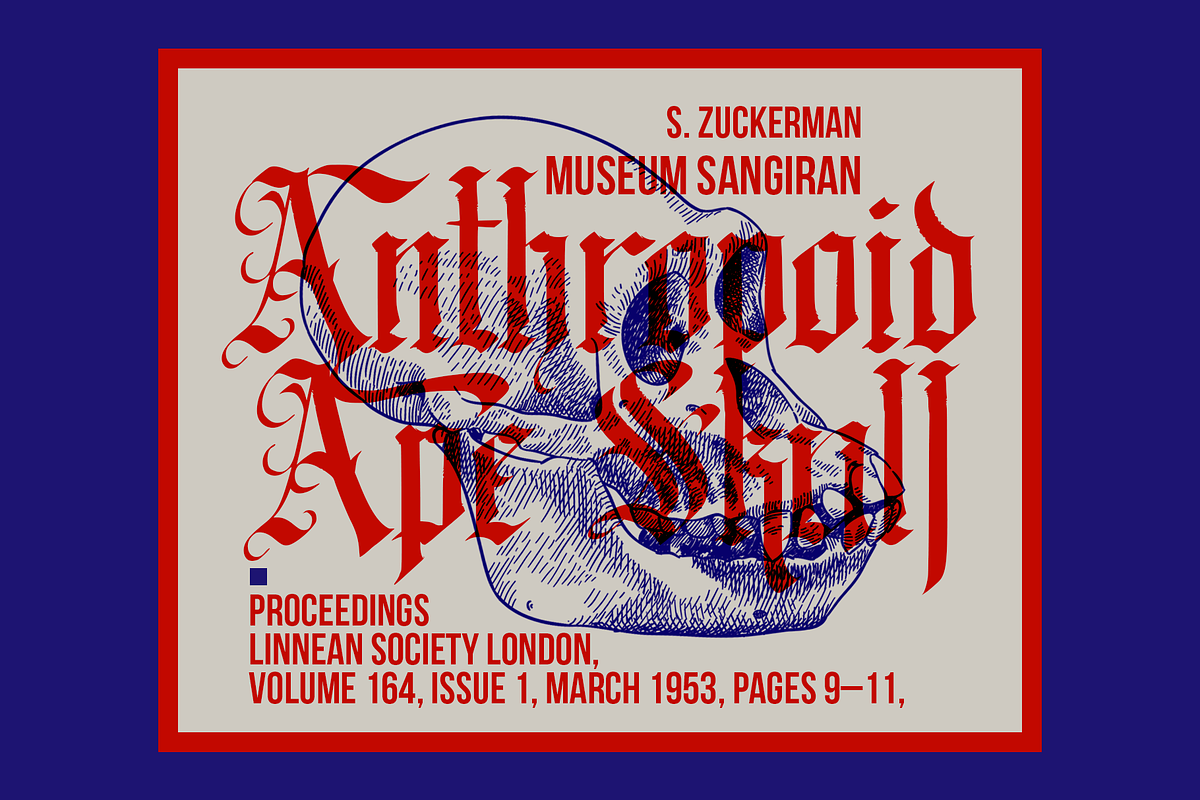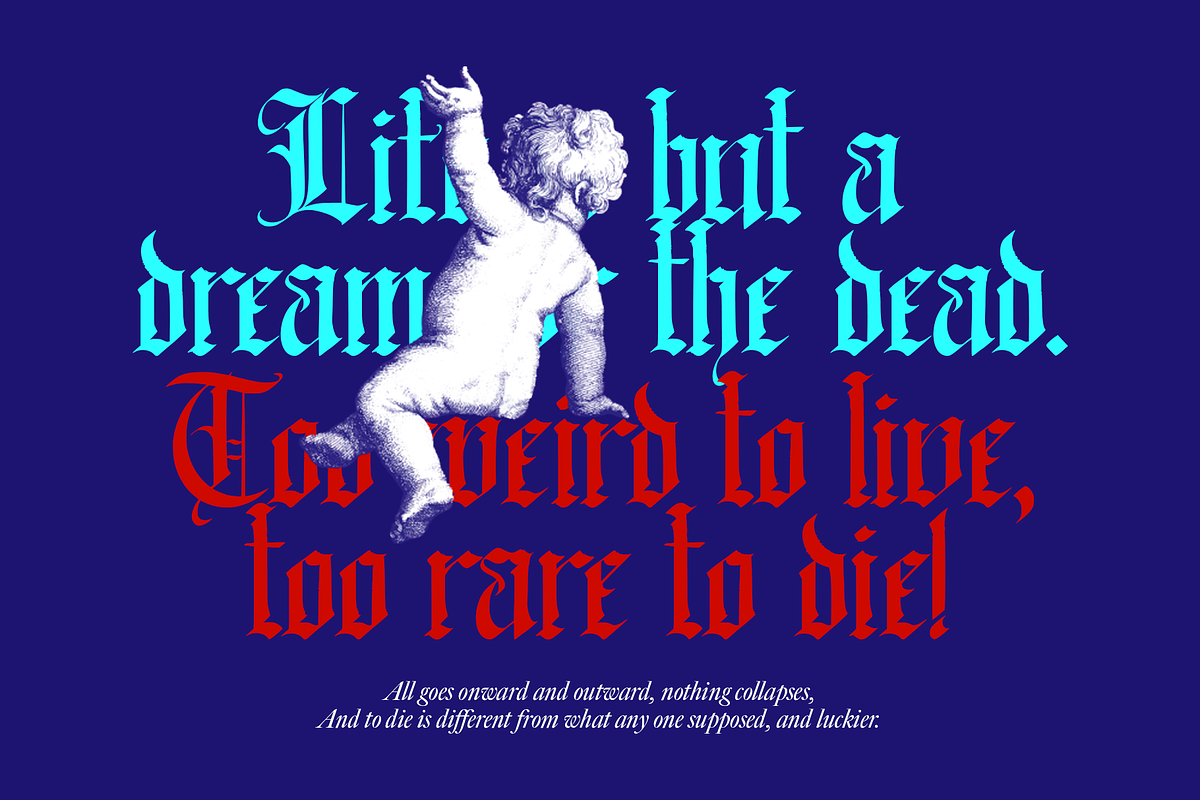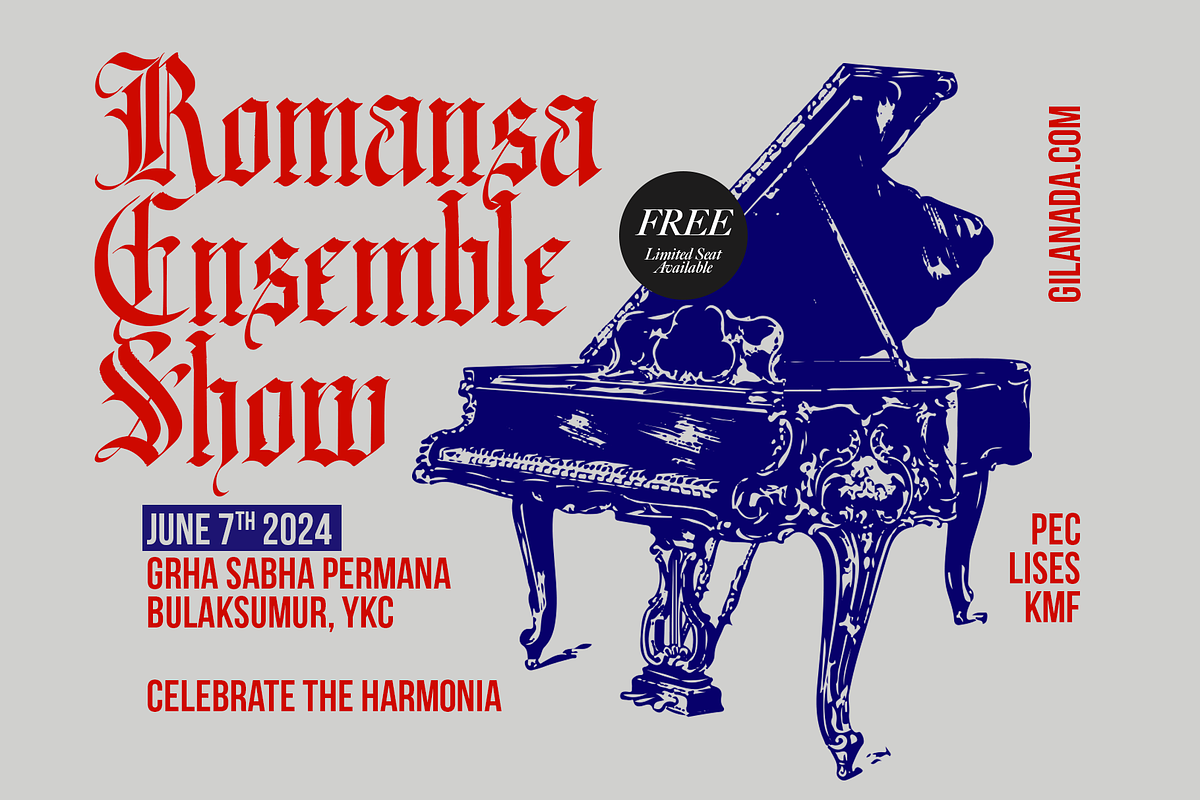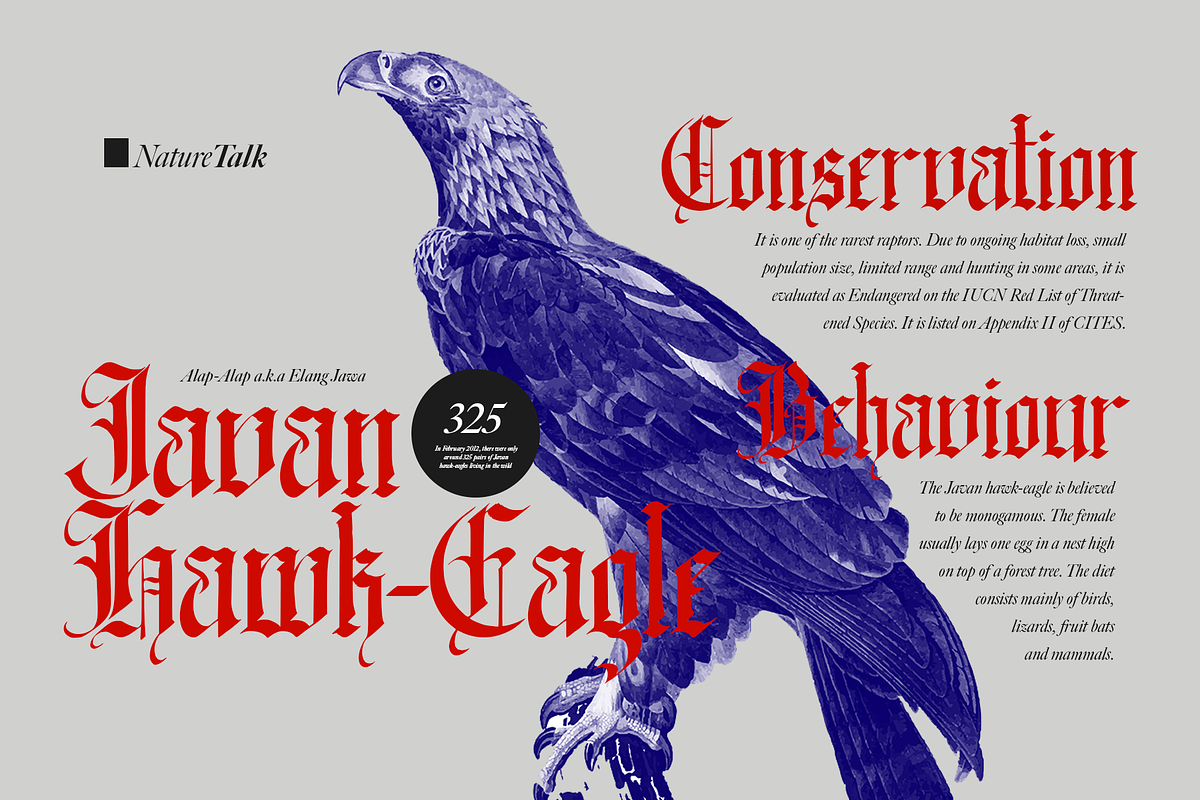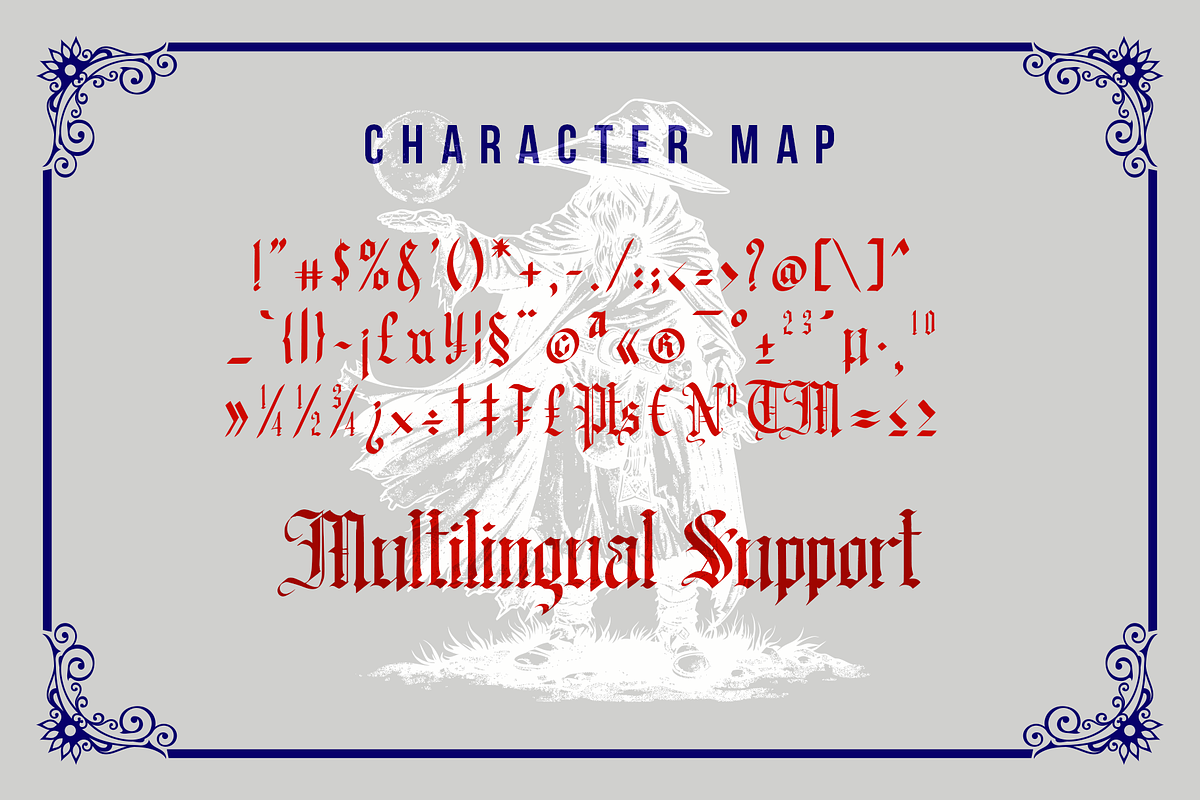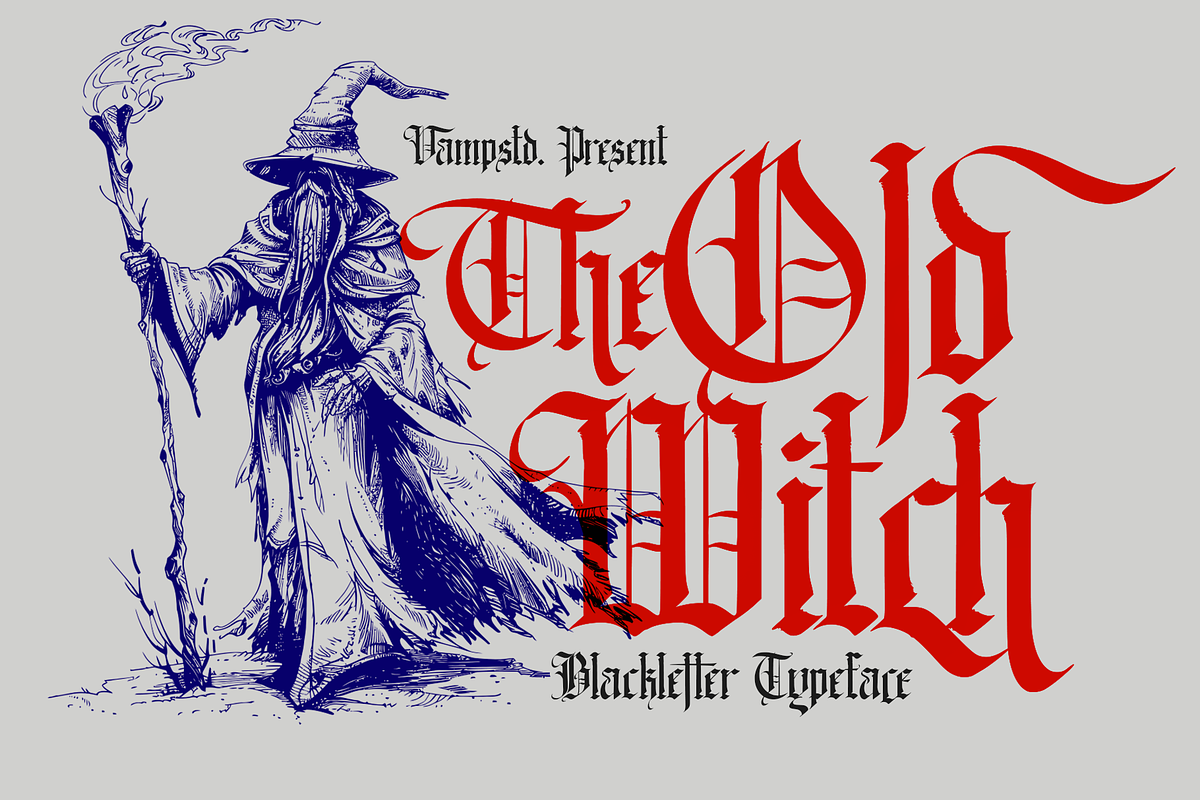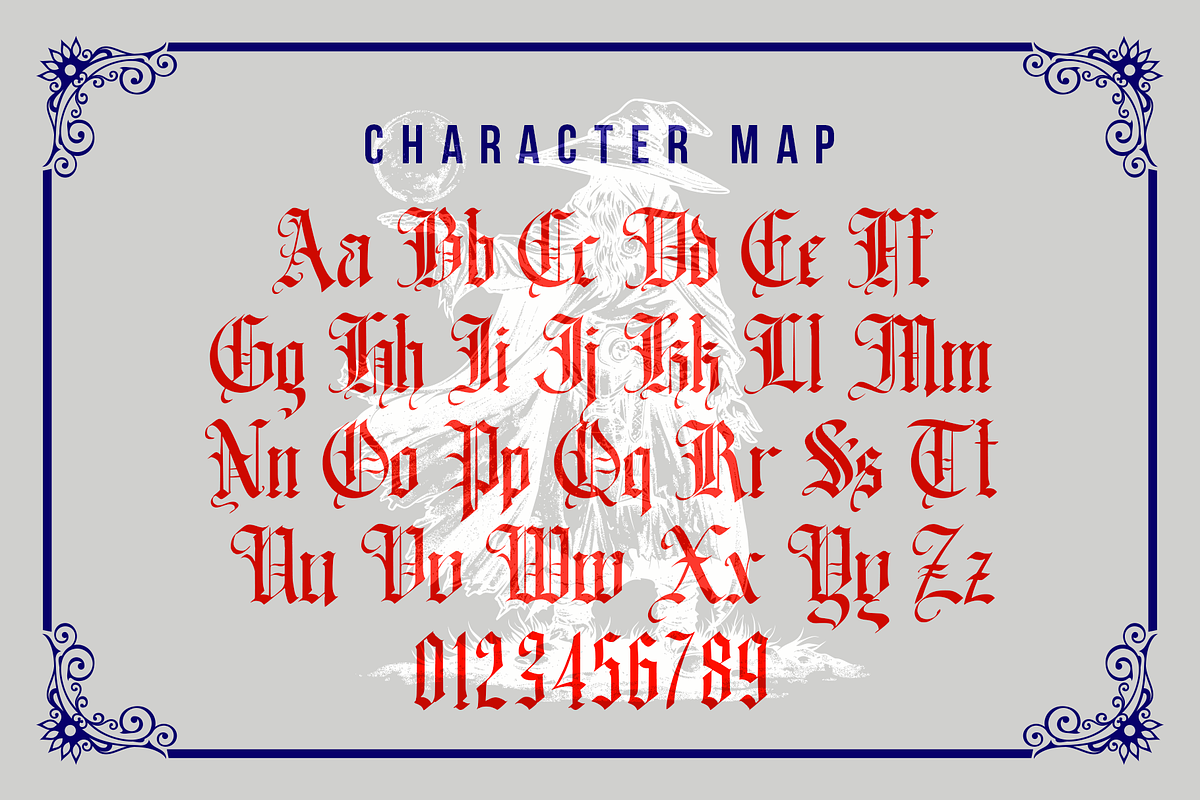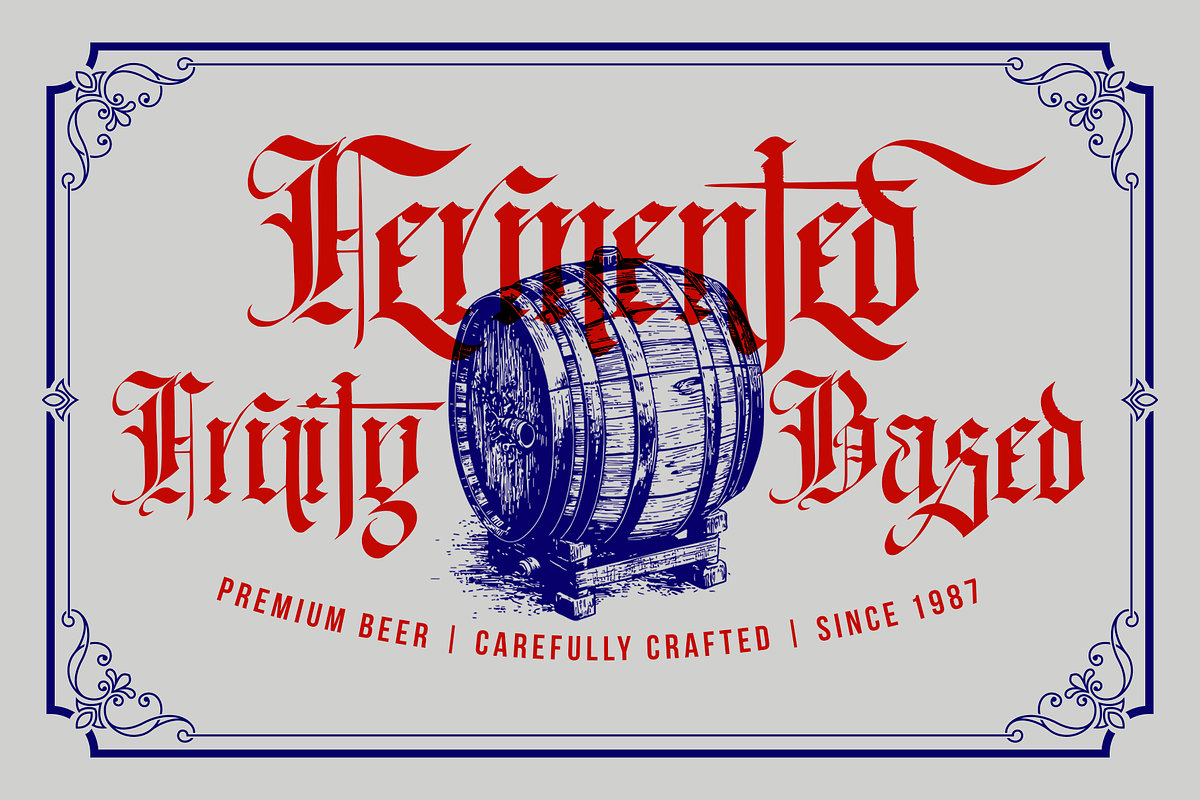
The Old Witch Blackletter
The Old Witch is an enchanting blackletter font that conjures the mystical essence of ancient spellbooks and dark folklore. With its intricate details and gothic charm, this font is perfect for projects that require a touch of the supernatural and the arcane. Ideal for book covers, posters, and branding materials, The Old Witch will infuse your designs with a hauntingly beautiful aura.
- Gothic Elegance: Each character is meticulously designed to reflect the ornate and elaborate style of traditional blackletter script, evoking a sense of historical mystique.
- Versatile Use: Perfect for a wide range of creative applications including fantasy-themed projects, Halloween promotions, invitations, labels, and more.
- Striking Visual Impact: Designed to captivate, this font is perfect for headlines, titles, and other prominent text, ensuring your message stands out with a dark, magical flair.
- Comprehensive Character Set: Includes uppercase, lowercase, numerals, punctuation, and special characters, providing you with all the elements needed for complete and cohesive design projects.
- Arcane Aesthetic: Brings a touch of the supernatural and medieval charm to contemporary designs, blending old-world magic with modern usability.
The Old Witch is more than just a font; it's a journey into a world of enchantment and mystery. Whether you're designing for print or digital, this font will add a spellbinding touch to your work, making it truly memorable. Embrace the dark allure of The Old Witch and let your creativity bewitch your audience